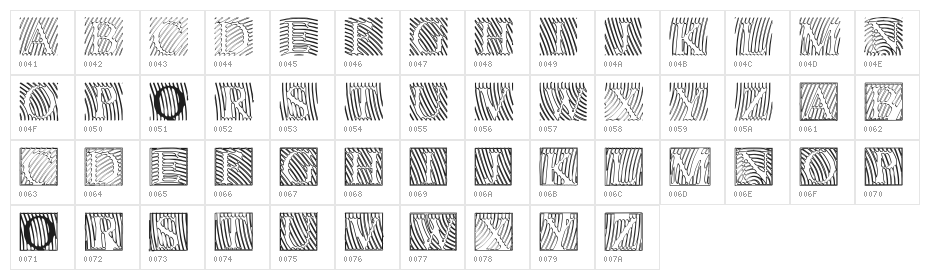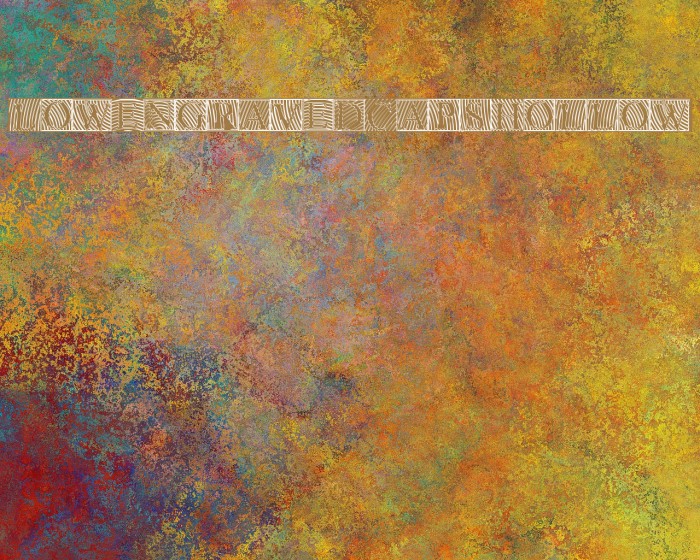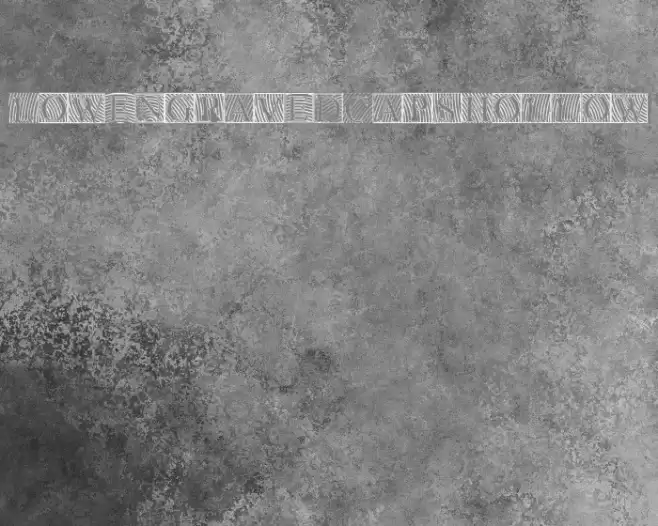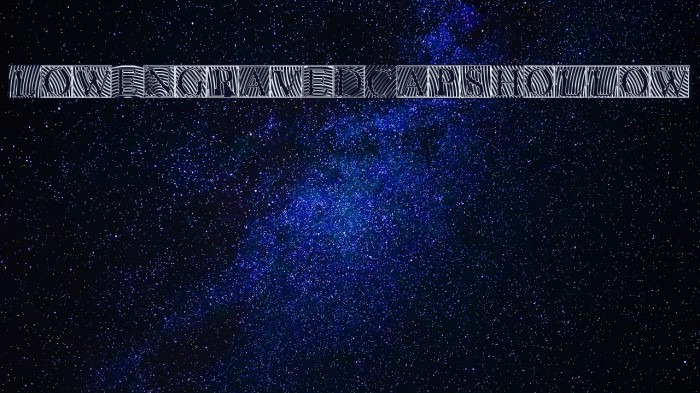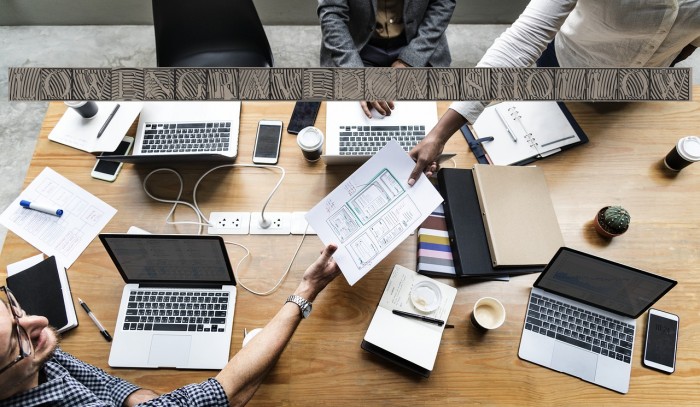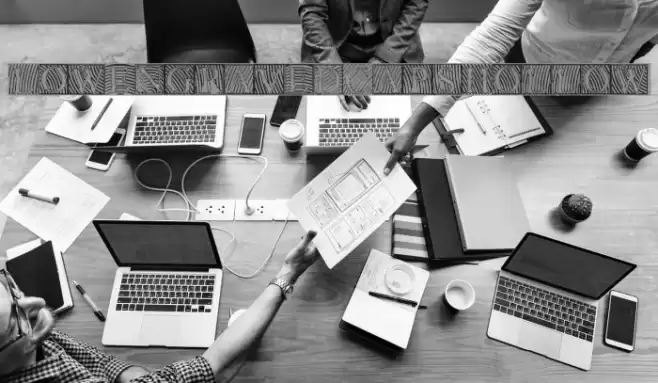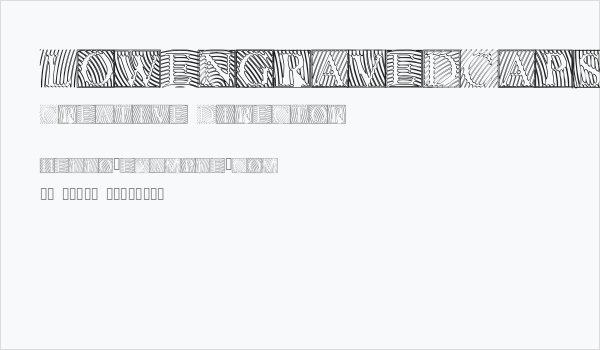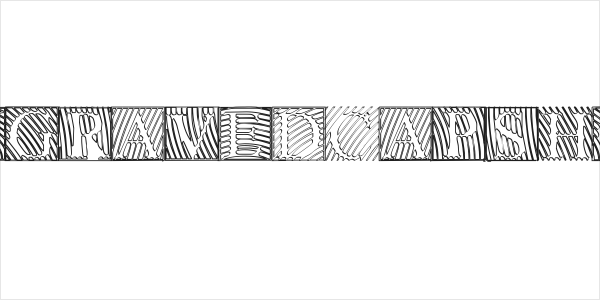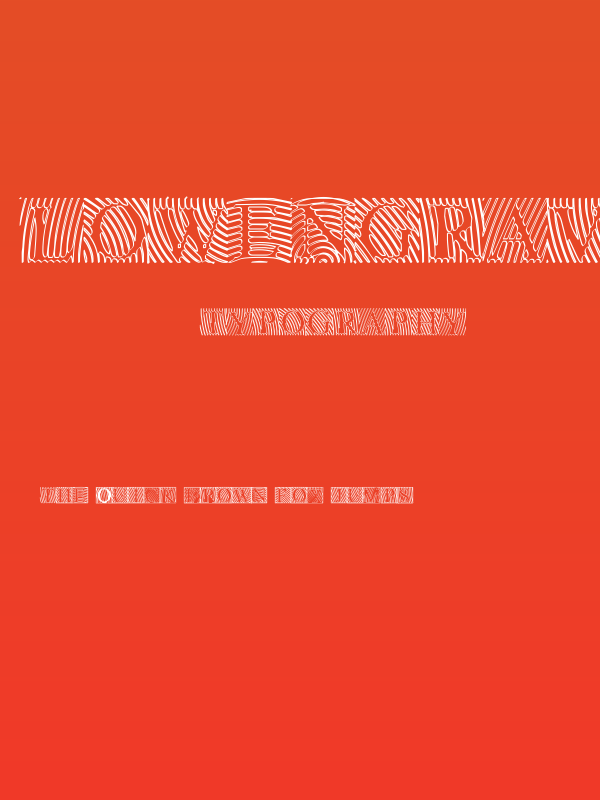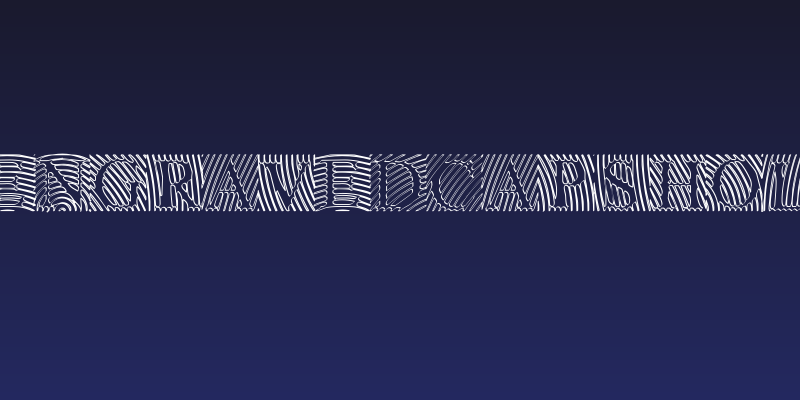
LowEngravedCapsHollow Font
LowEngravedCapsHollow Description
This font features a unique engraved style with hollow interiors, creating a striking visual effect. The uppercase letters are intricately designed with a series of parallel lines that form the outer shape of each character, giving them a textured appearance. The lowercase letters follow a similar pattern, maintaining consistency throughout the typeface. The numbers and special characters are also designed with the same engraved, hollow style, ensuring a cohesive look. This font's distinctive design makes it ideal for projects that require a bold and artistic touch.
| Use Case | Headlines, Logos, Artistic Projects |
| Proposed Projects | Ideal for artistic posters, unique branding, decorative invitations, and creative headlines. |